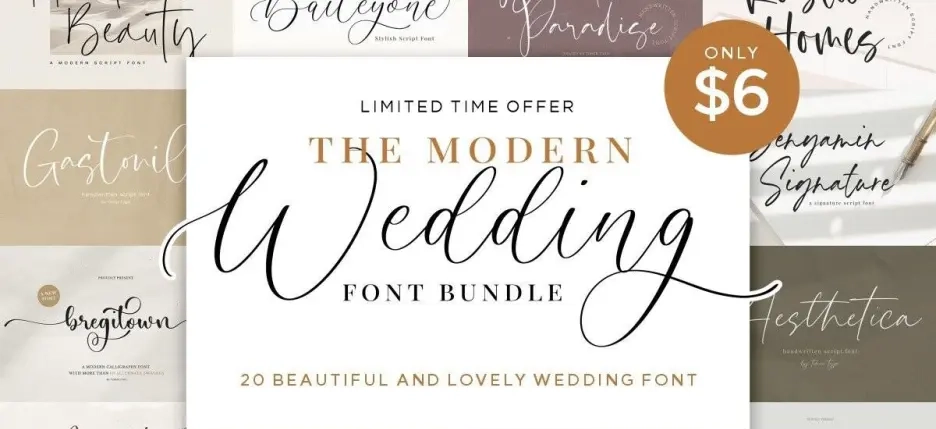
The Modern Wedding Font Bundle
The Modern Wedding Font Bundle offers a curated selection of elegant typefaces designed specifically for wedding invitations, signage, and other romantic applications. This collection includes a variety of styles, from script to serif, ensuring that you have the perfect font for any aspect of your wedding design.
• Multiple font styles: script, serif, and display
• Variety of weights for flexibility in design
• Easy to read and aesthetically pleasing
• Styles: Script, Serif, Display
• Weights: Light, Regular, Bold
• Ideal for wedding invitations, save-the-dates, and thank you cards
• Perfect for branding and logo design for wedding-related businesses
• Use in digital and print media for cohesive wedding themes